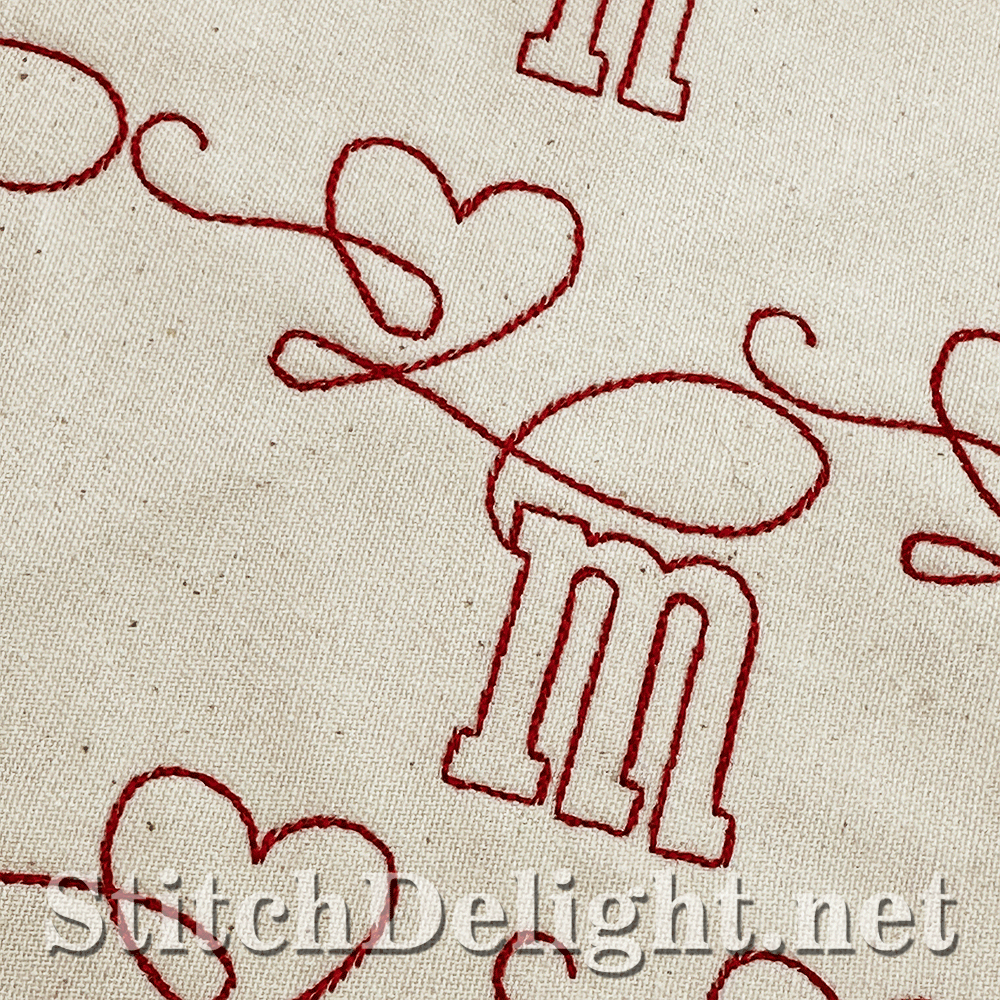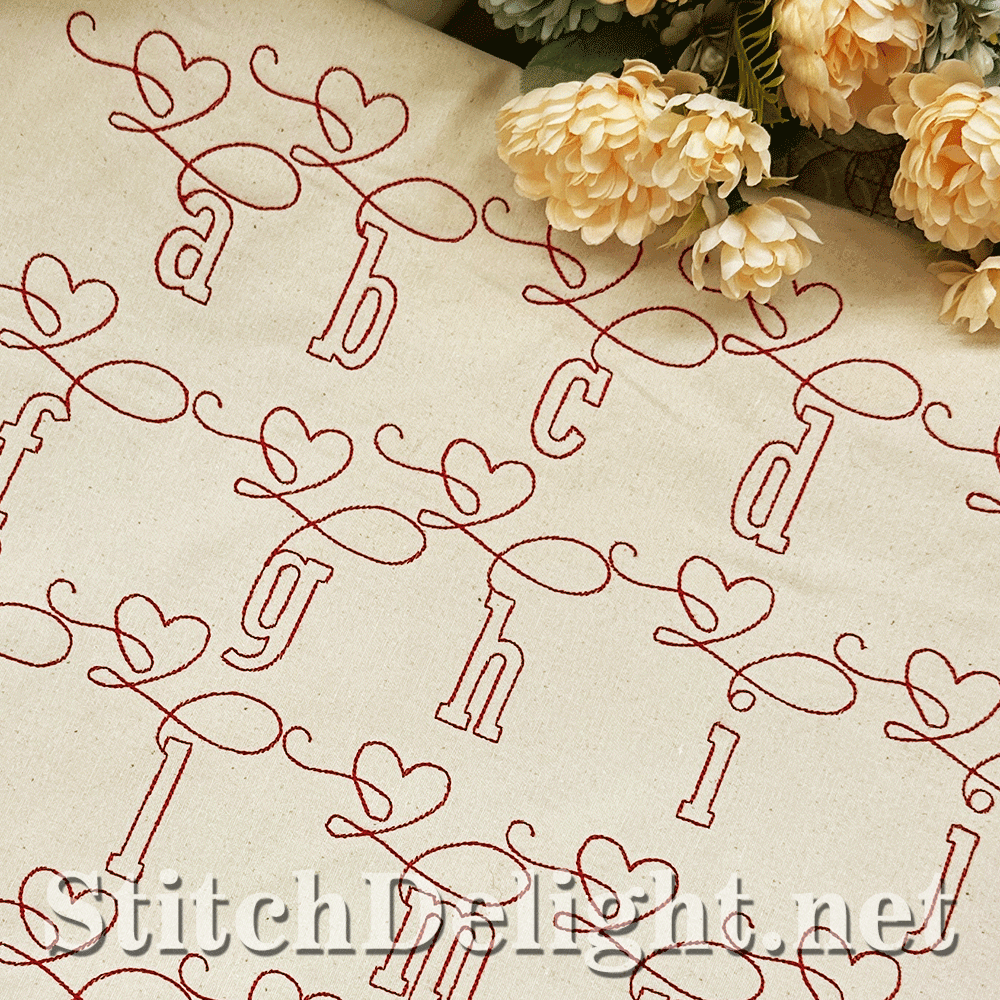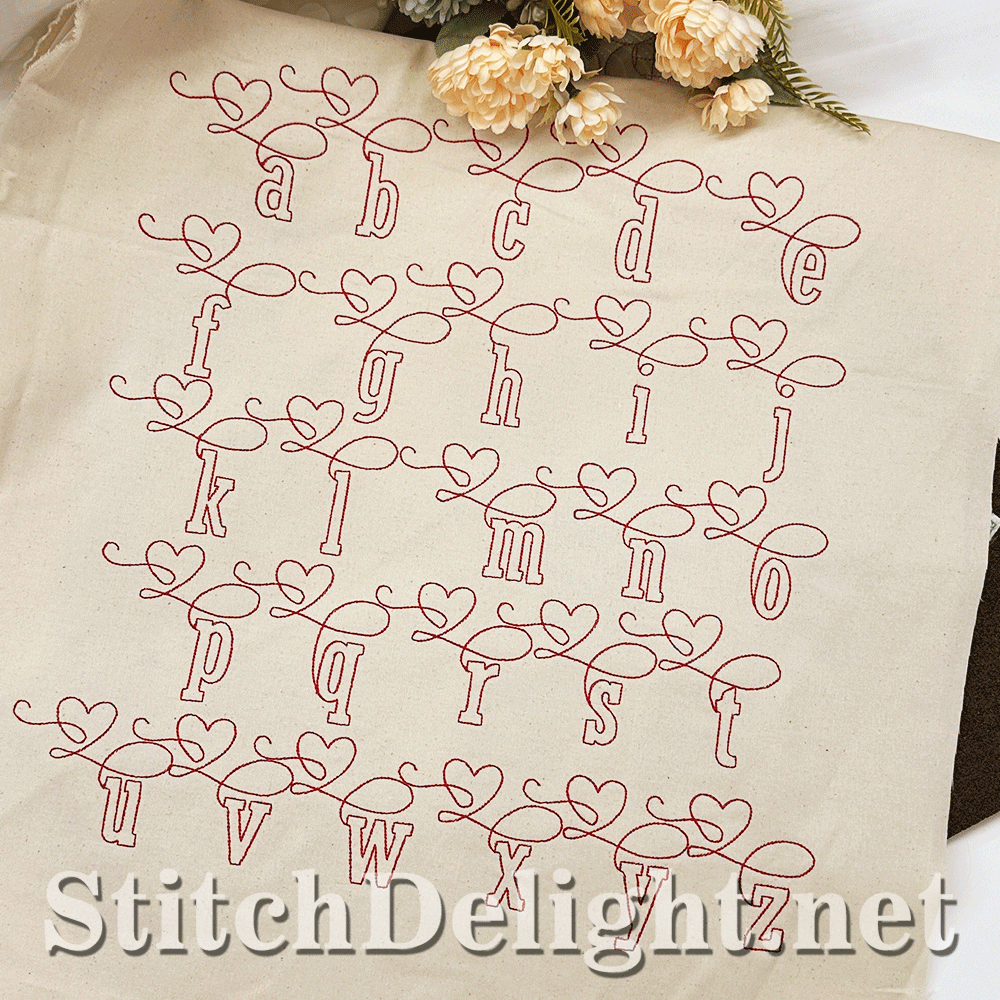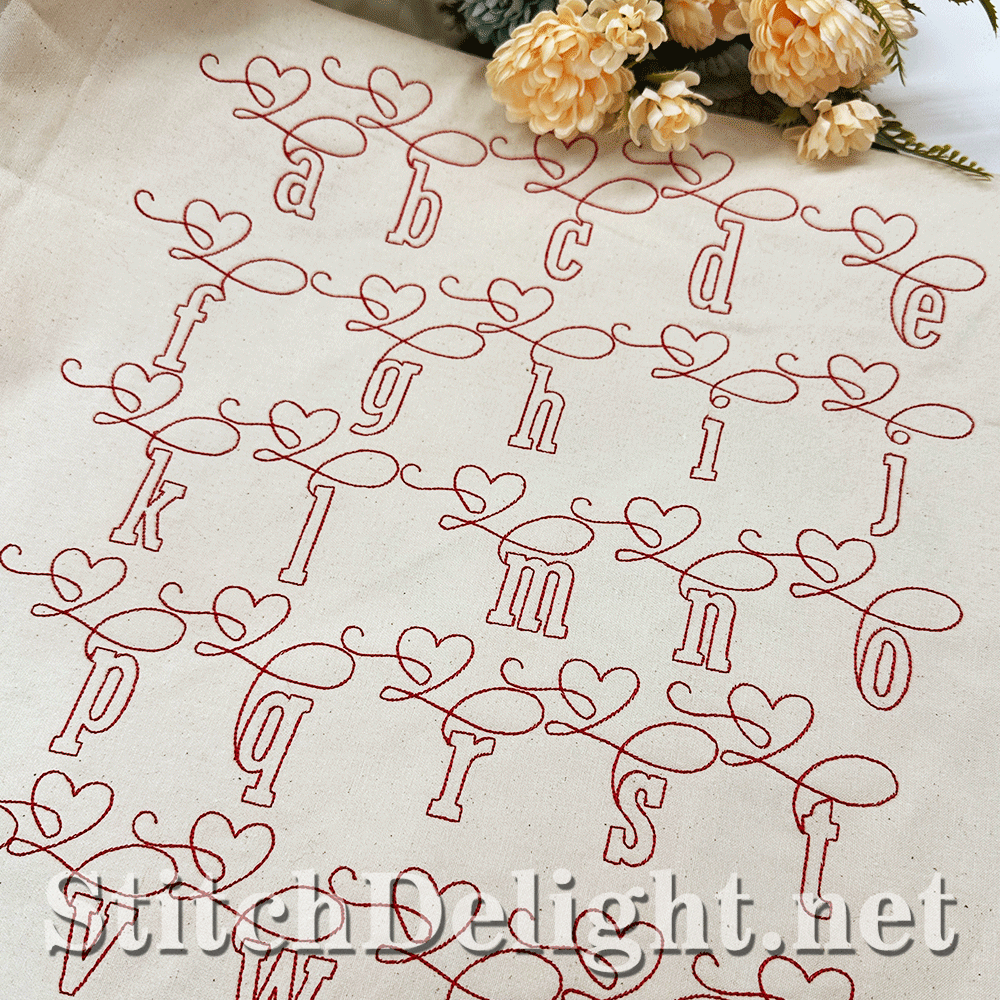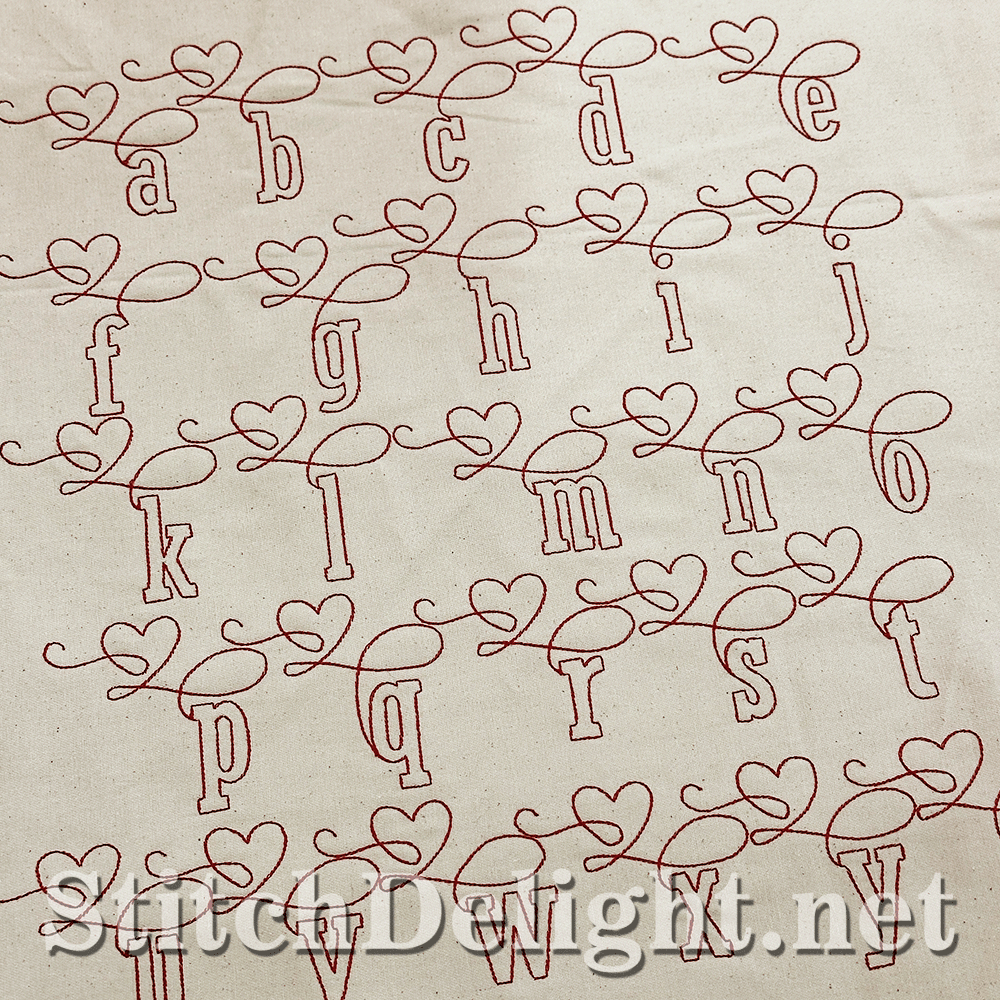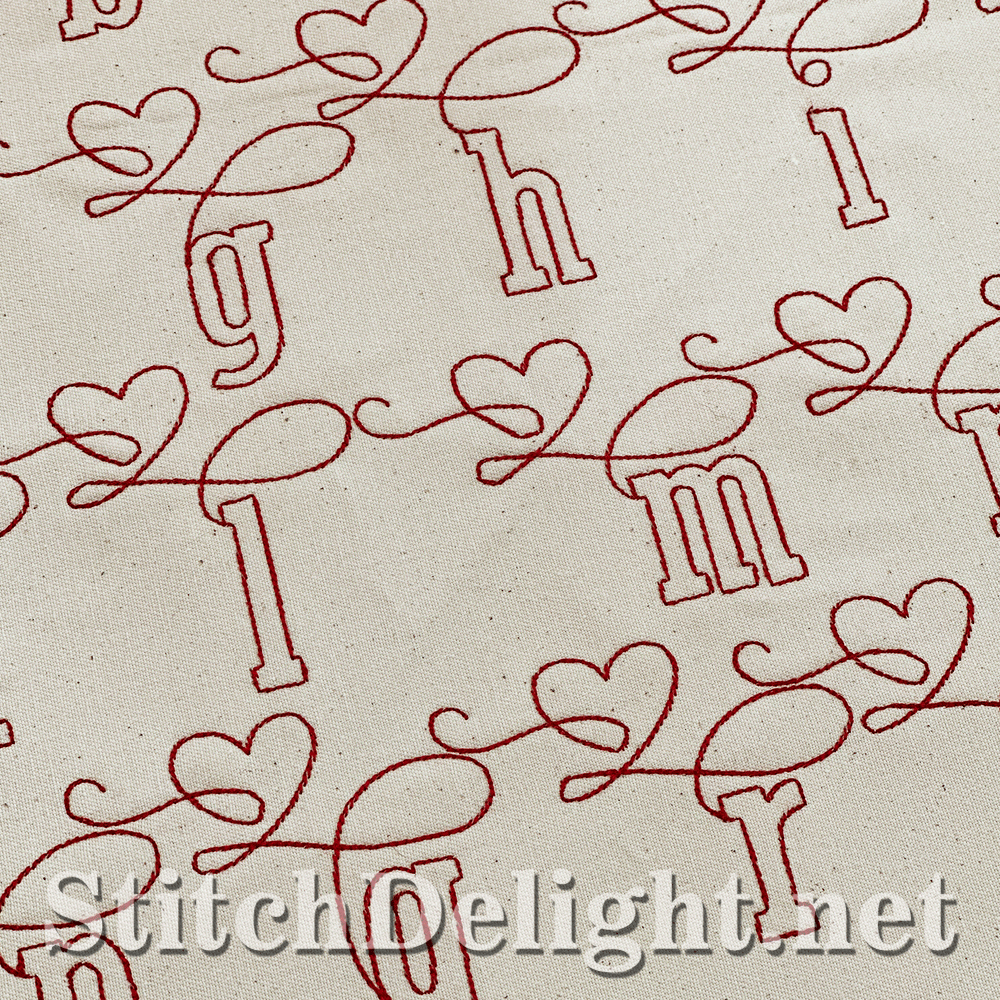
SDS4242 Handstitch Love Font
Hand Stitch font adds a playful and loving touch, it has an average height of 2.9", it's made to match perfectly with SDS4224 Outline font and SDS4251 Attitude Duckling Font